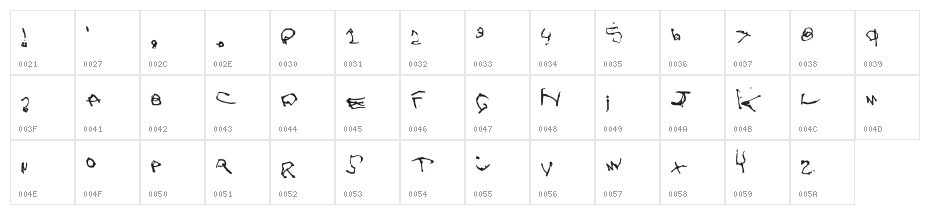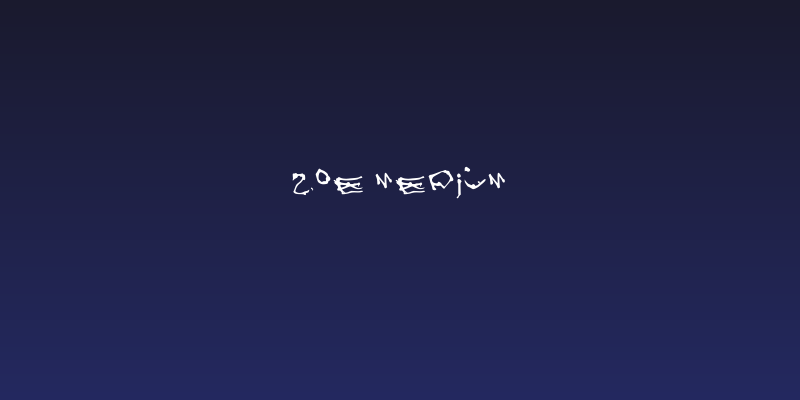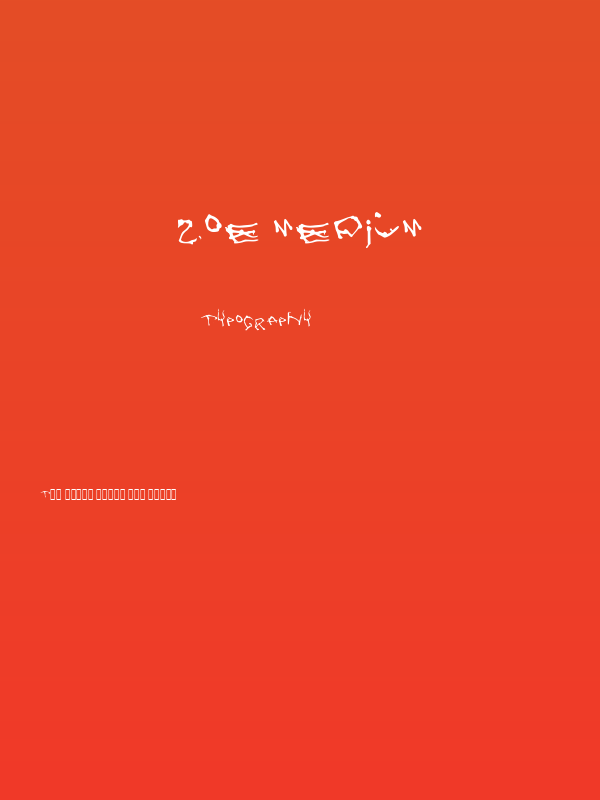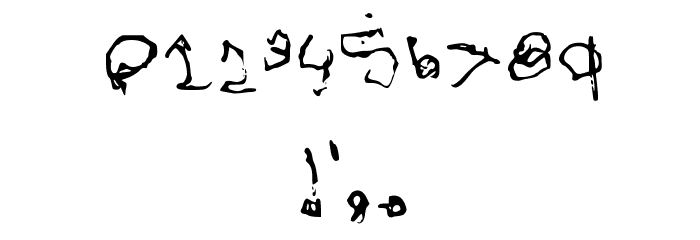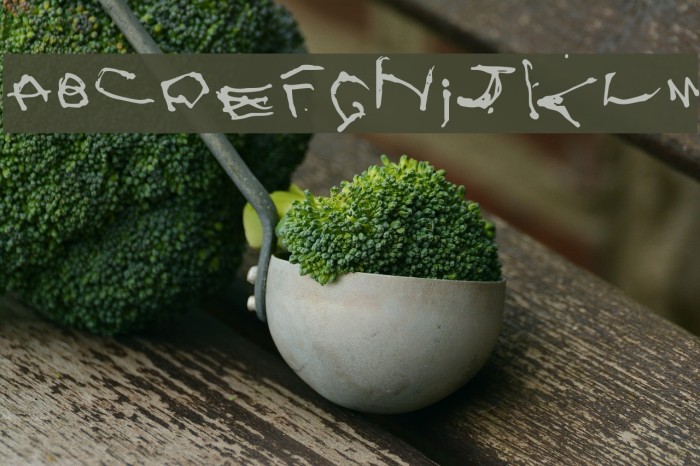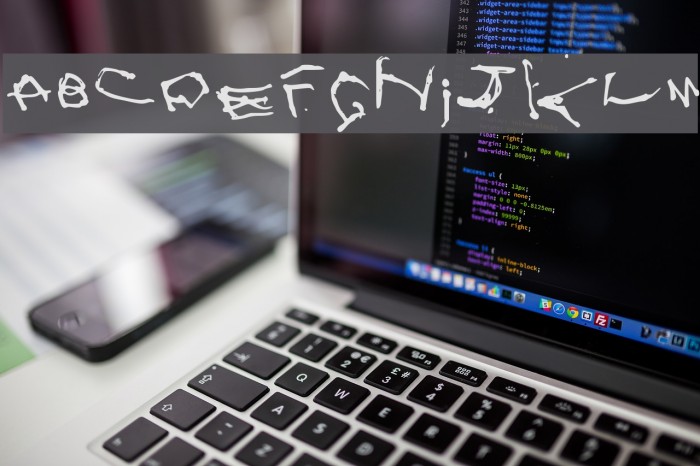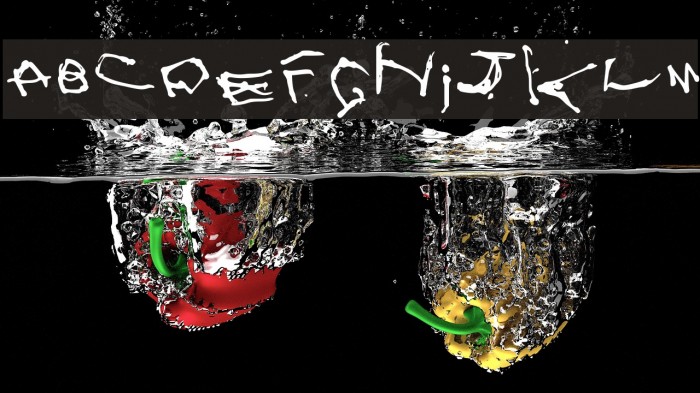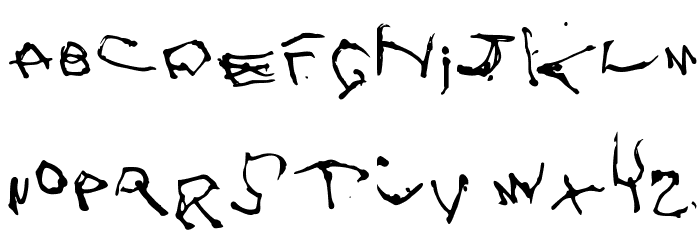
ZOE Medium Font
ZOE Medium Description
This font exhibits a highly artistic and abstract style, characterized by its irregular and hand-drawn appearance. The letters are formed with uneven strokes and varying thicknesses, giving it a raw and expressive feel. The characters appear as if they were drawn with a brush or pen, with some strokes appearing bold and others thin, creating a dynamic visual texture. The font maintains a consistent baseline, but the heights and widths of the characters vary significantly, adding to its unique and unconventional look. This font is ideal for projects that require a creative and avant-garde touch, such as art installations, experimental designs, or unique branding efforts.
| Overall Style | Artistic, Avant-garde |
| Use Case | Logos, Artistic projects, Experimental designs |
| Proposed Projects | Ideal for art installations, experimental designs, unique branding, and creative projects. |